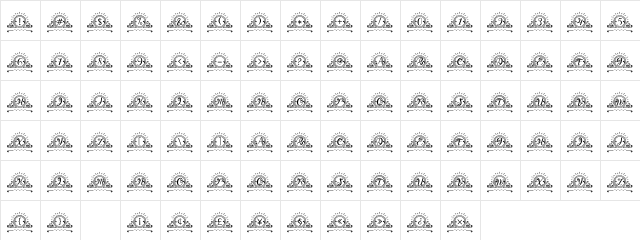
Belove Monogram Regular
Foundry: Graphicxell
Designer: Usman Al Baehaqi
Design Context for Belove Monogram
Belove Monogram uses fixed-width spacing throughout, giving it the structured, systematic character associated with coding environments and technical documentation.
Pro Tip: Use Belove Monogram with slightly increased line-height for extended reading - fixed-width spacing can feel dense in longer passages without extra breathing room.